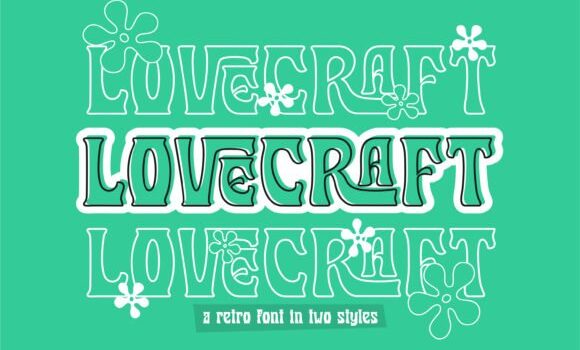
Lovecraft Font – Free Download Introduction to Lovecraft Font Lovecraft is a retro display font featuring a regular solid and an outline version. 📸 Preview Gallery 4 images 📌 Product Name Lovecraft Font 👤 Author Tedha Studio 📂 Category Explore